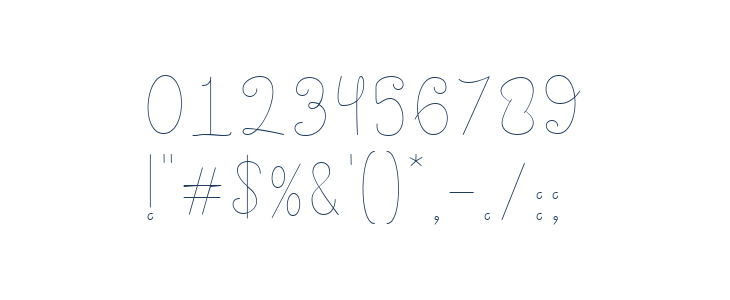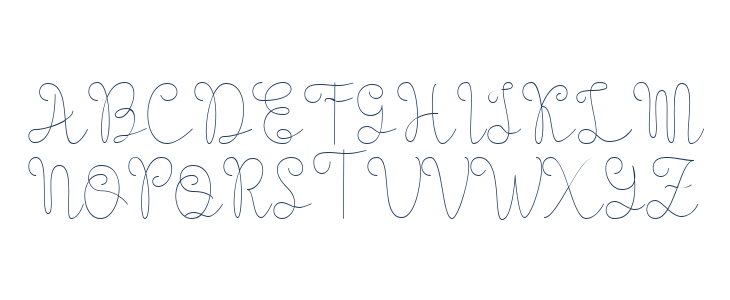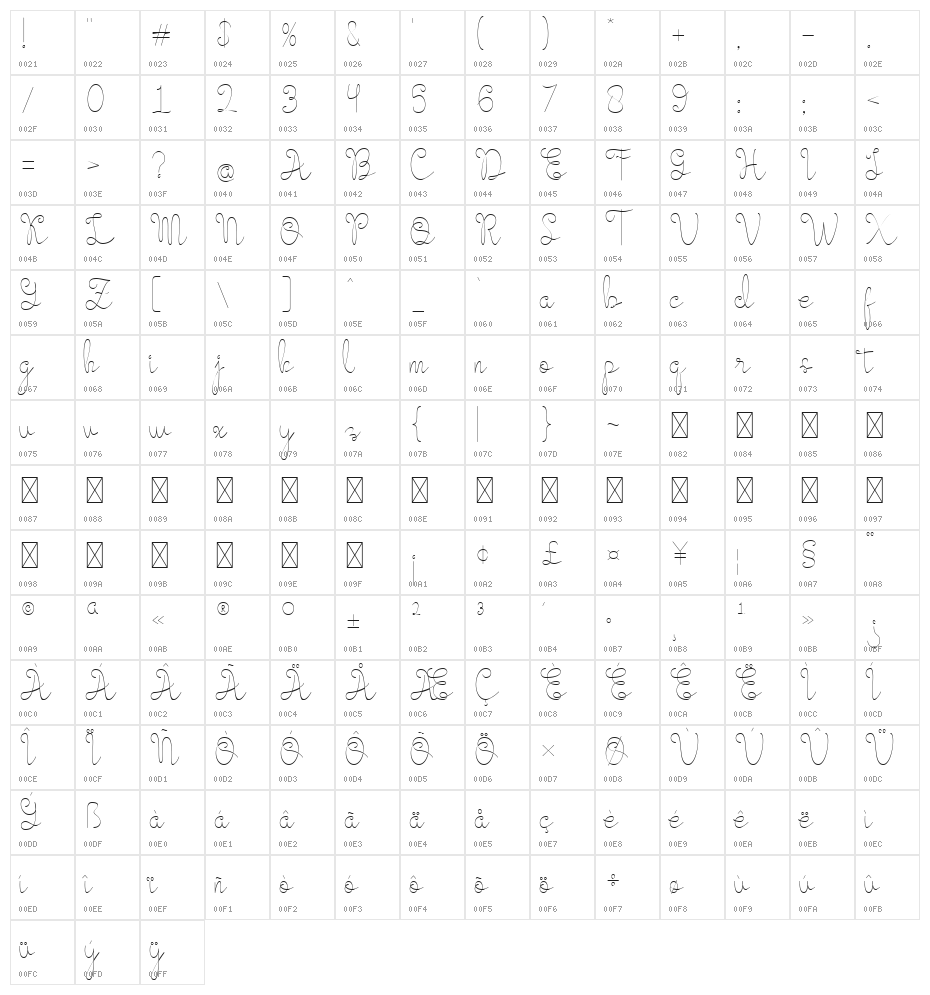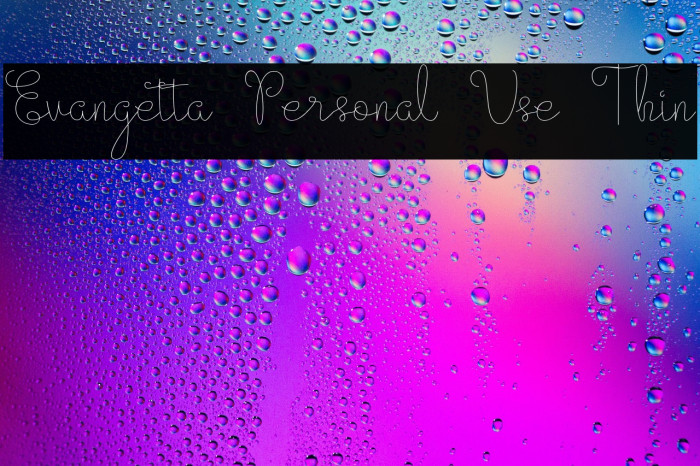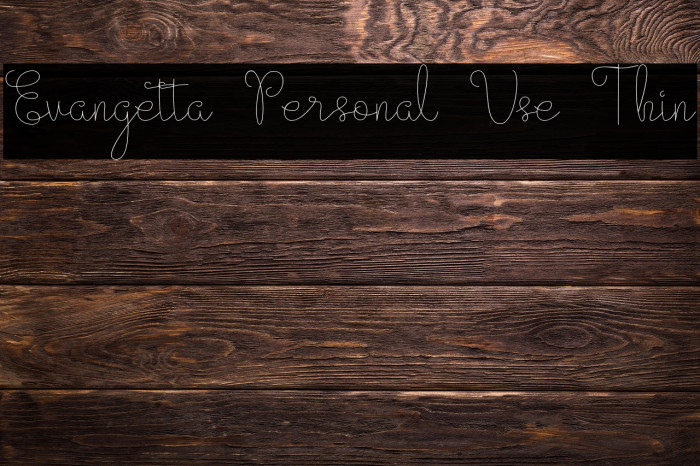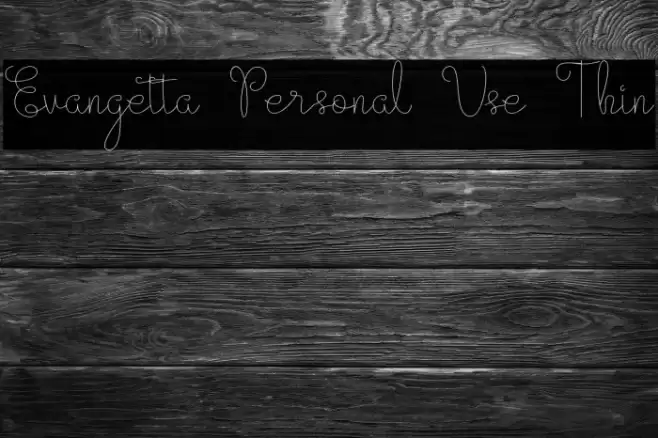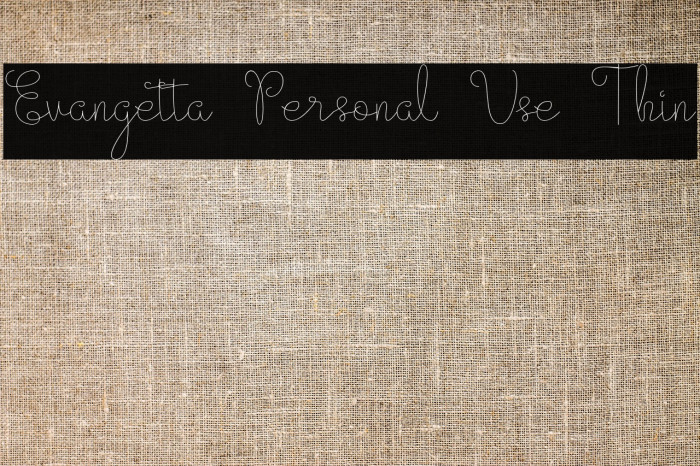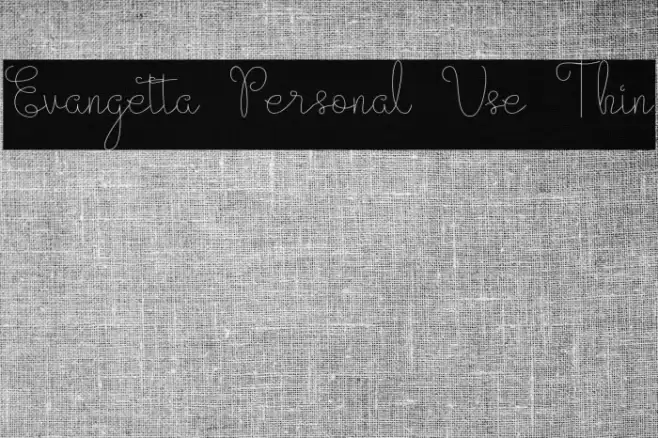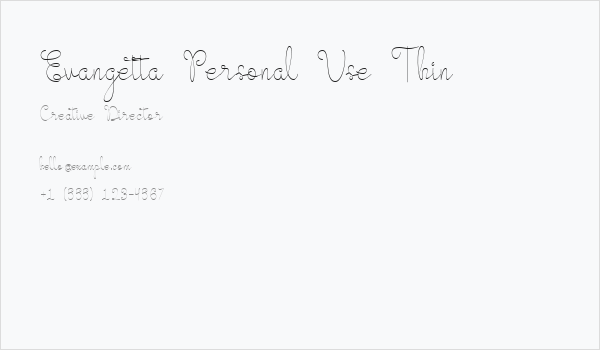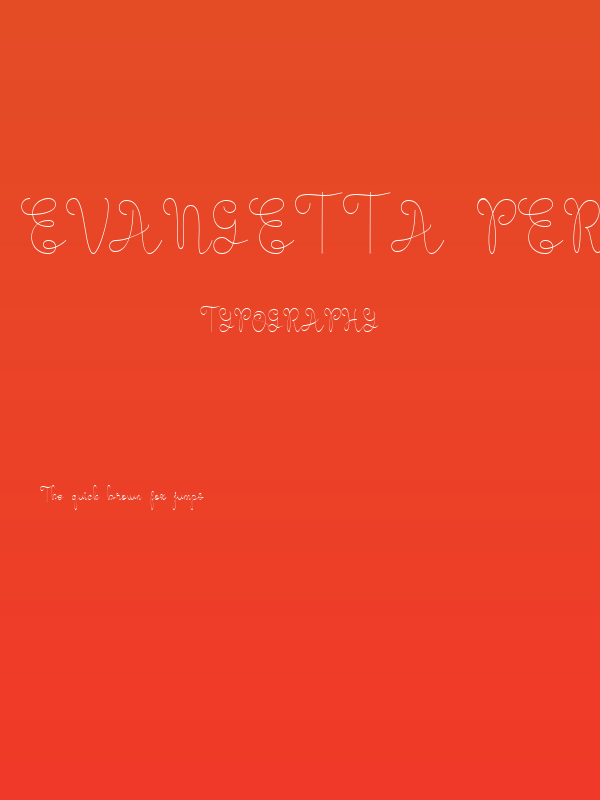
Evangetta Personal Use Thin Font
Evangetta Personal Use Thin Description
A delicate, cursive script font with a handwritten, flowing style characterized by thin, elegant lines and loops.
| Overall Style | Elegant, Feminine, Handwritten |
| Use Case | Invitations, stationery, branding, logos |